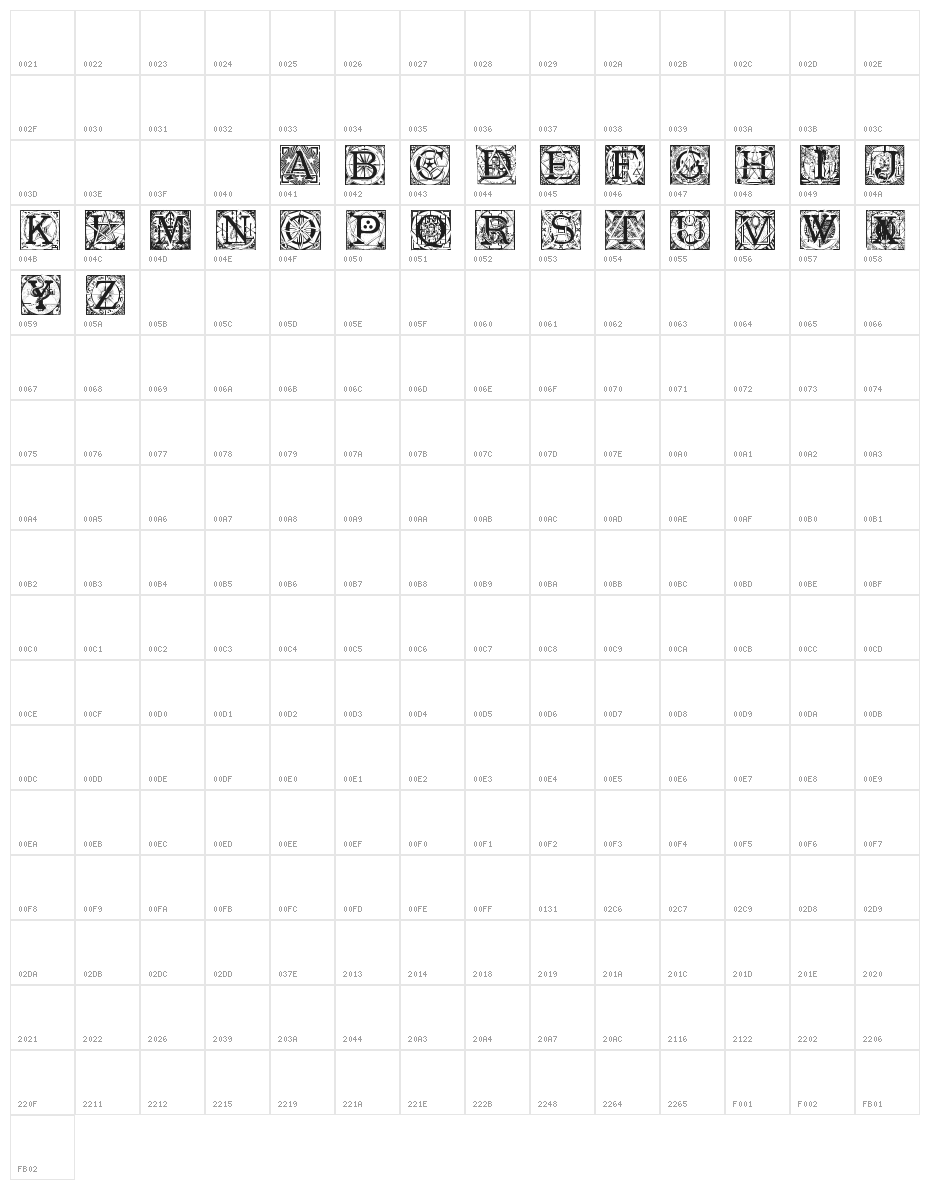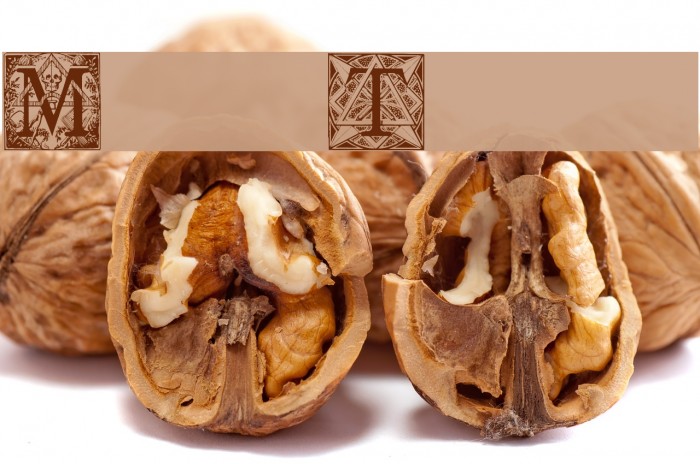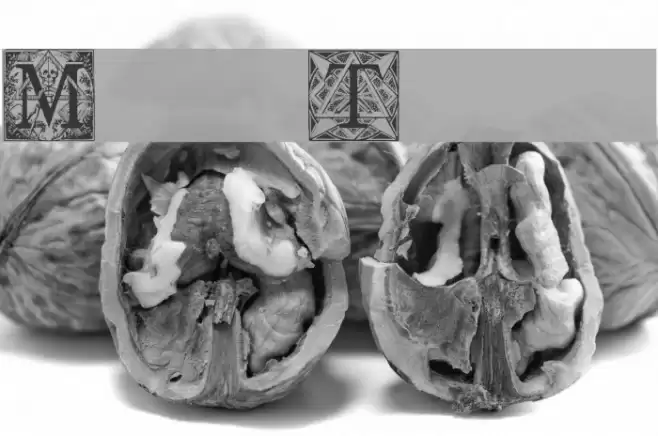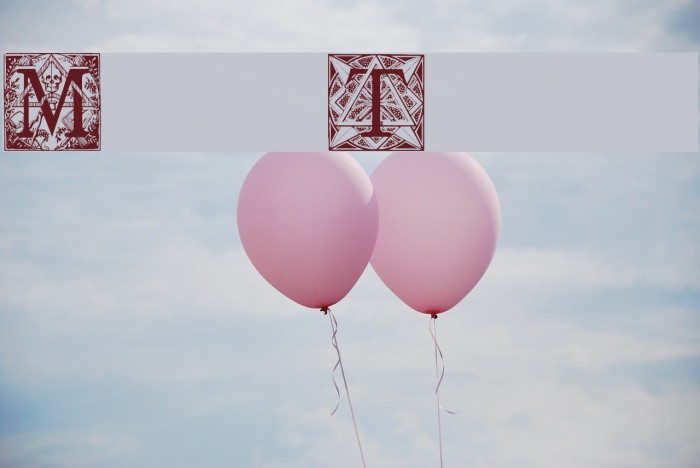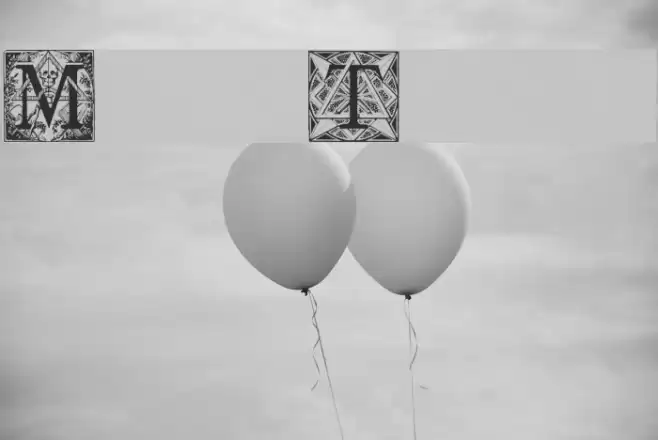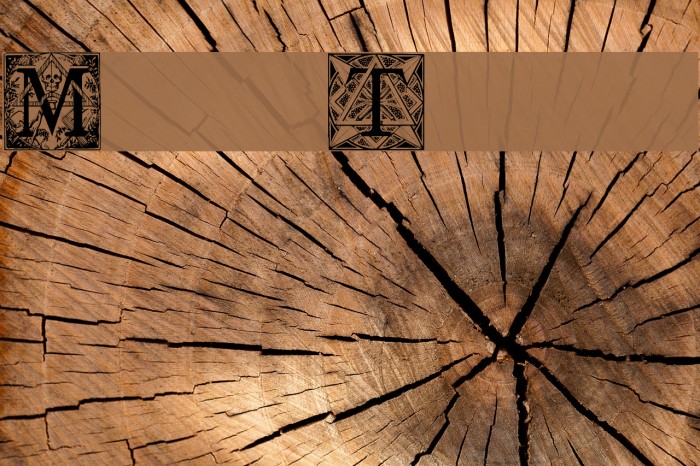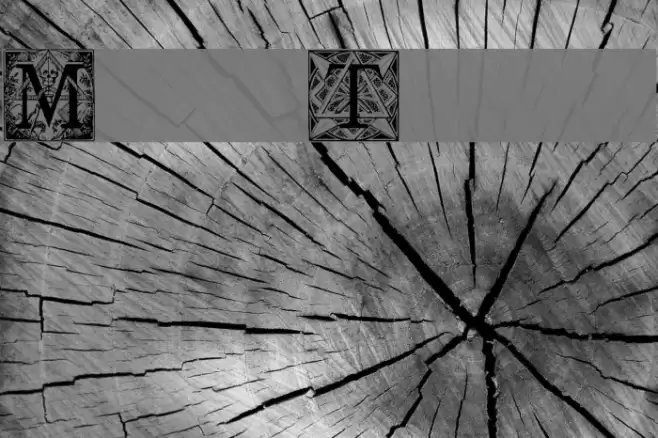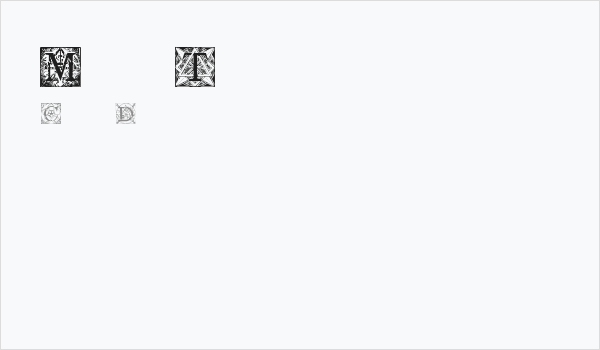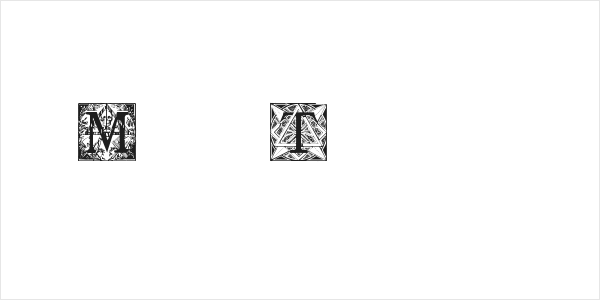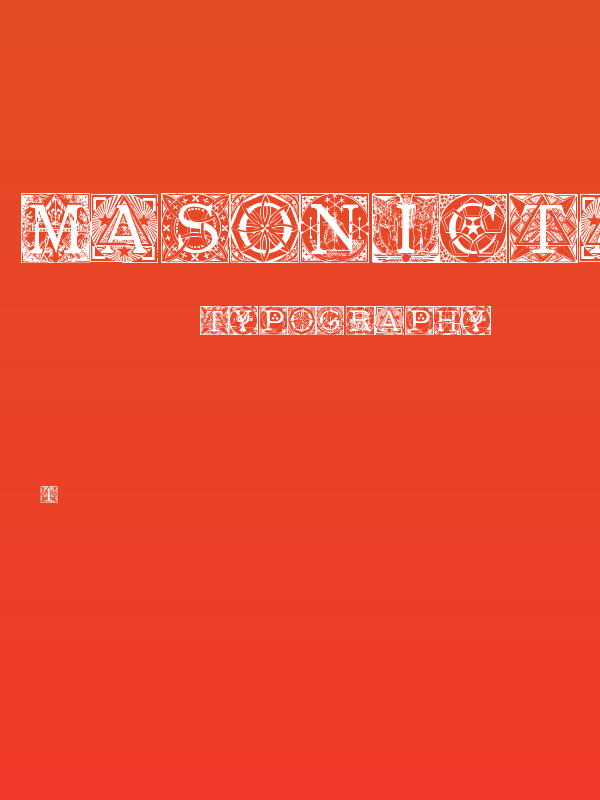
MasonicTattegrain Font
MasonicTattegrain Description
This font features an intricate and decorative style, with each letter enclosed in a square frame filled with elaborate patterns and symbols. The design is reminiscent of historical or mystical themes, with a strong emphasis on ornamental detail. Each character is uniquely crafted, incorporating various motifs that add a sense of depth and complexity. The overall appearance is bold and eye-catching, making it suitable for projects that require a touch of elegance and sophistication.